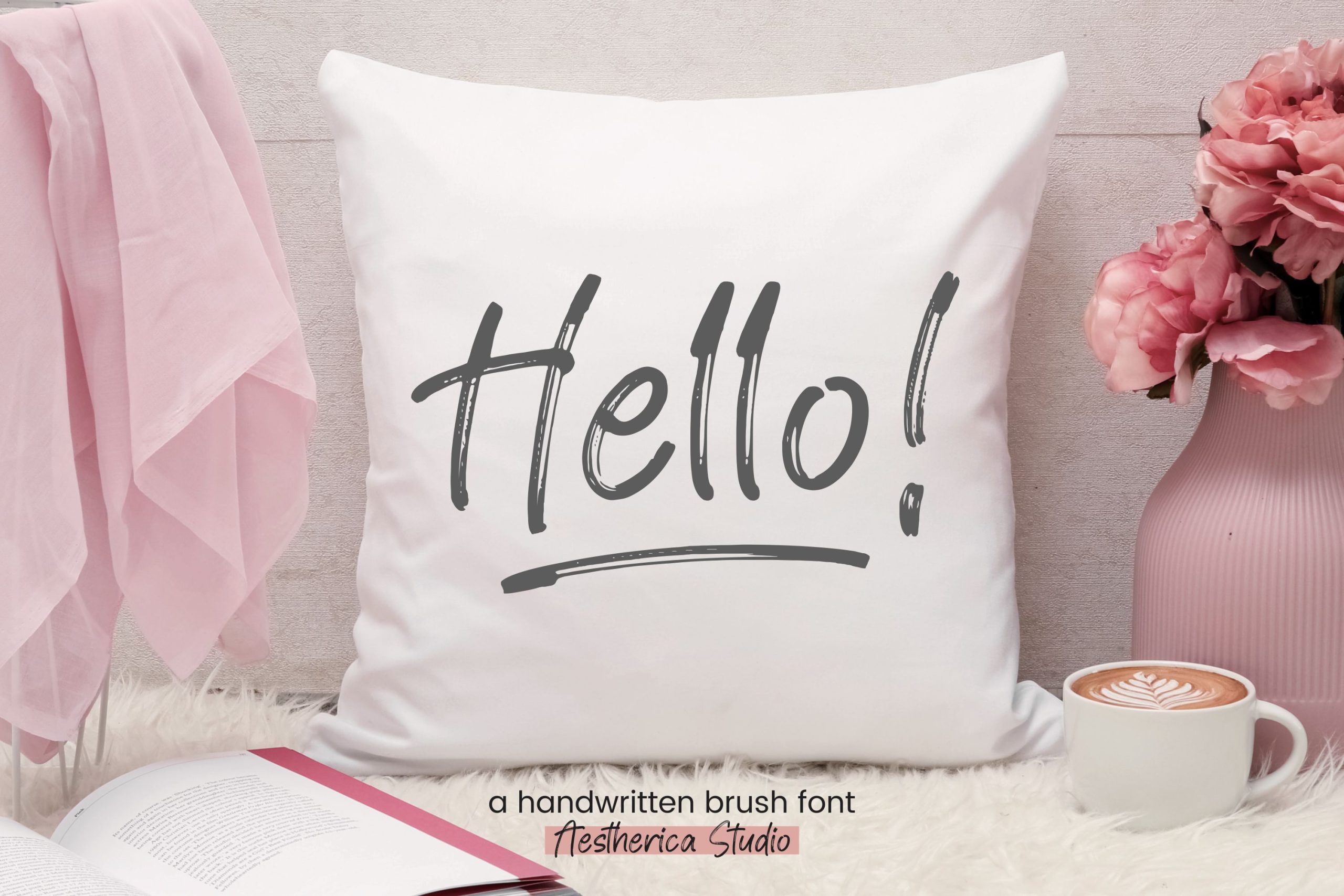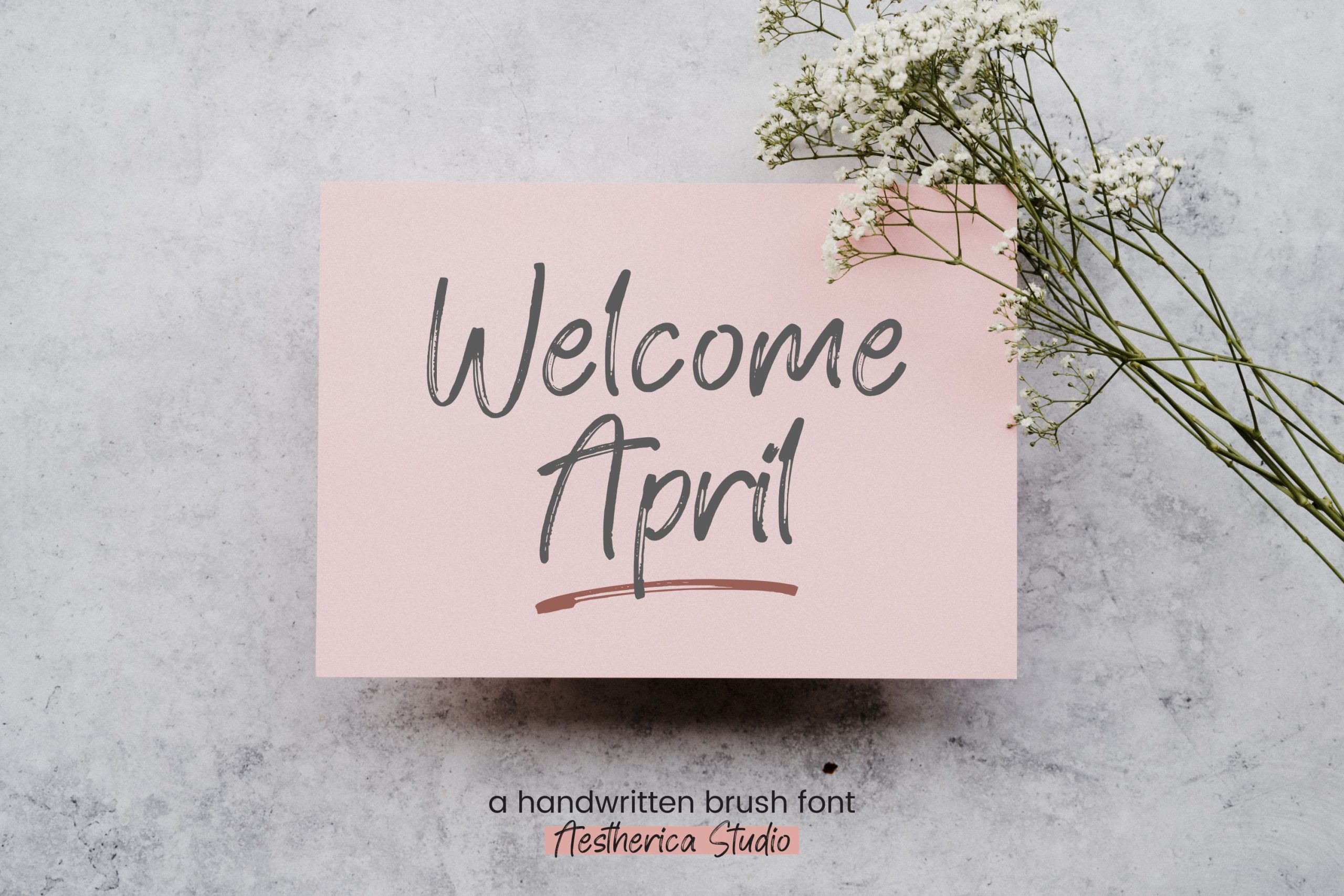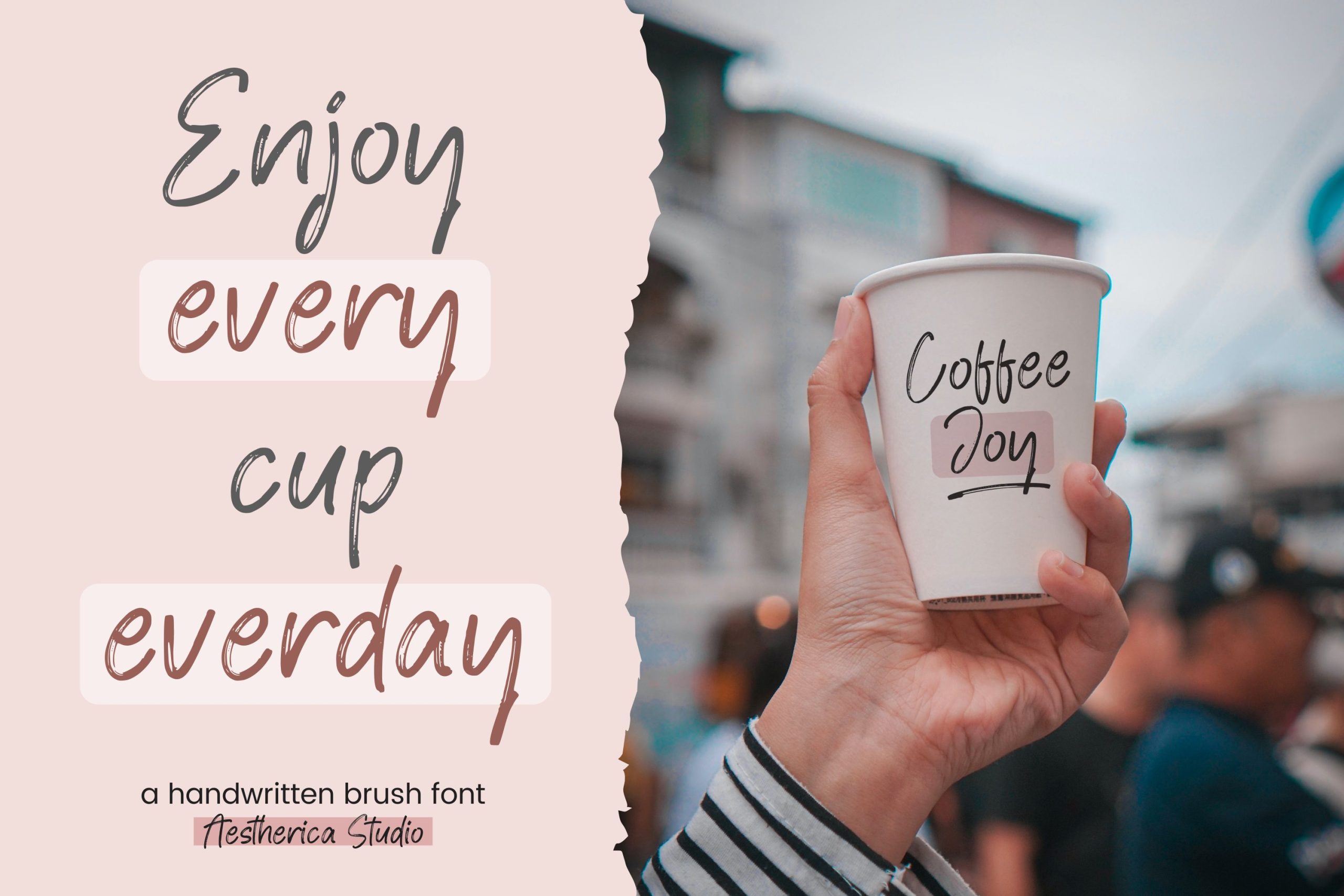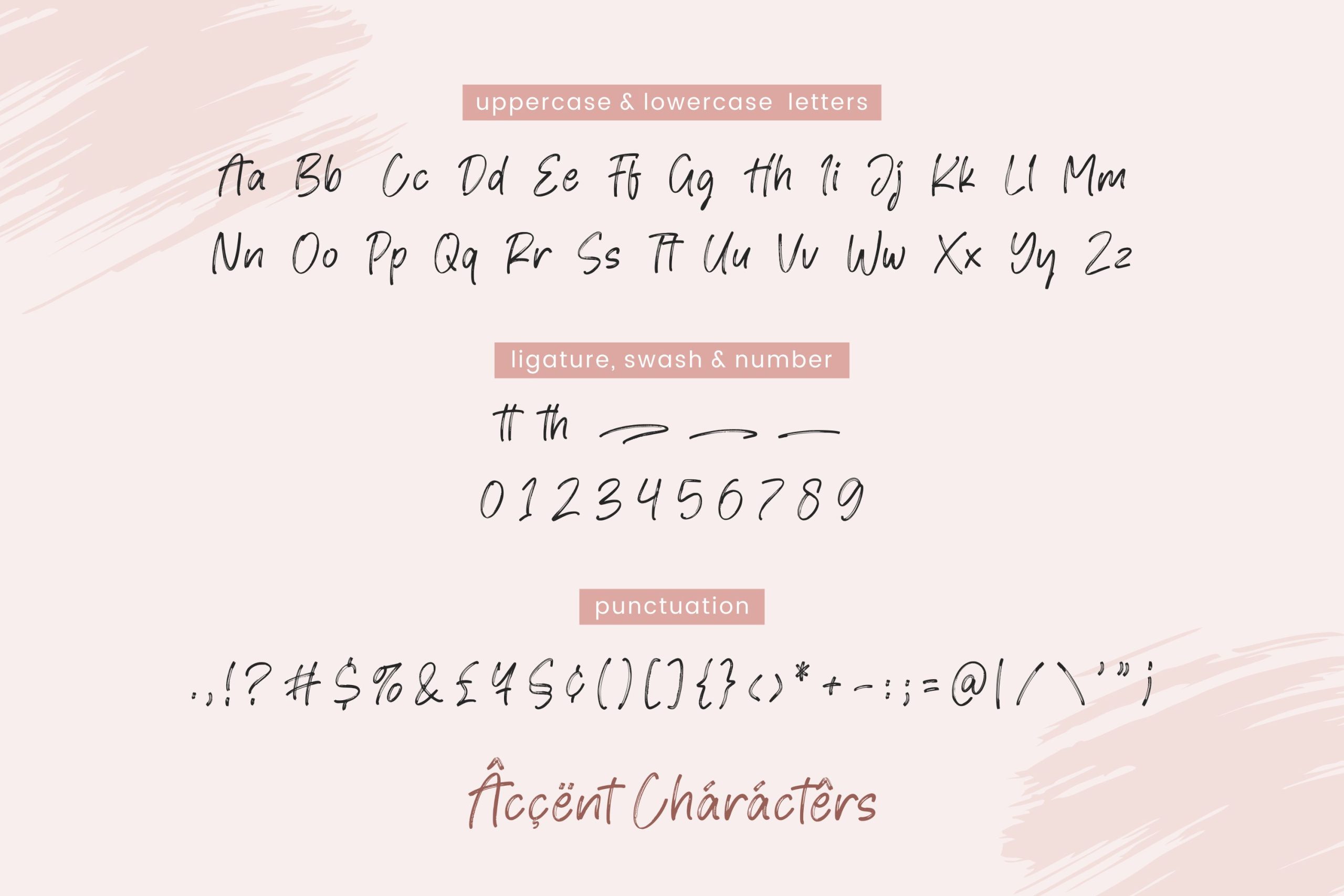
Hugins Font
Hugins Brush Font
It’s a handwritten brush font with a Strong charm with quick dry strokes and a signature style.
Hugins is perfect for branding projects, homeware designs, product packaging – or simply as a stylish text overlay to any background image.